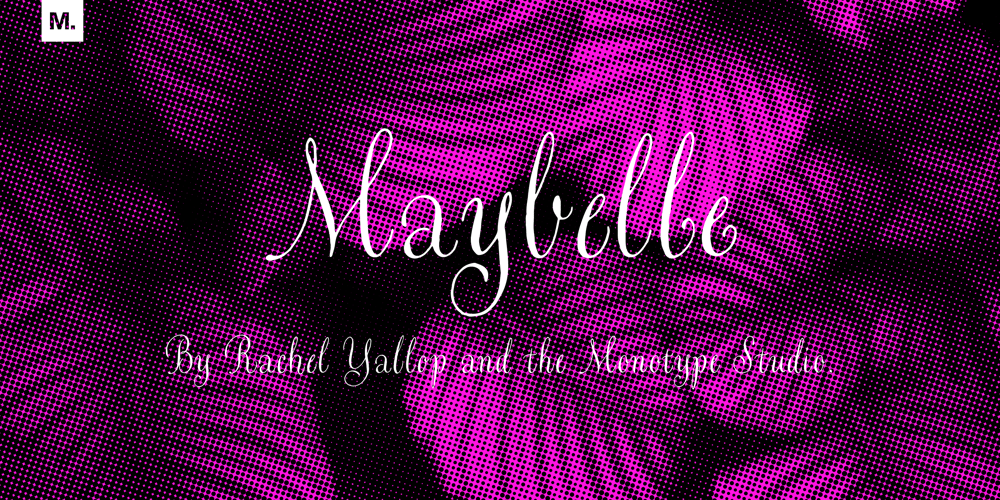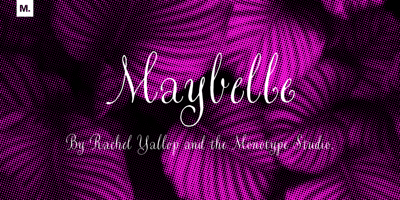
Maybelle Font Family was designed by Rachel Yallop and published by Monotype. Maybelle contains 1 styles and family package options. Designed by calligrapher Rachel Yallop, Maybelle is pretty and proudly romantic, with delicate flourishes and a superbly handwritten, calligraphic sensibility. Drawn with a pointed pen and ink, this script boasts dainty loops and high contrast letterforms. Maybelle is available with some ligatures and alternate glyph shapes.